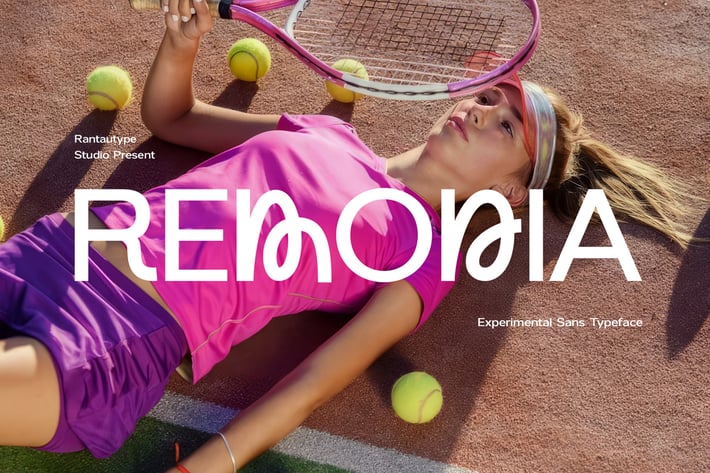
Remodia Experimental Sans Font
Remodia is a experimental sans font with fun alternate combination.. Remodia come with alternate playful look and flownes curve make it more attractive, you have the flexibility to mix & match to create the perfect combination.
Remodia is a perfectly choice for any creative endeavor, chic, lifestyle design such as logos, advertisements, watermark on photography, stationery, branding project, display and magazine, invitation, corporate brand, product design, label, business project and many other project with modern or fun touch.
Standart Glyphs
Alternate and Ligature